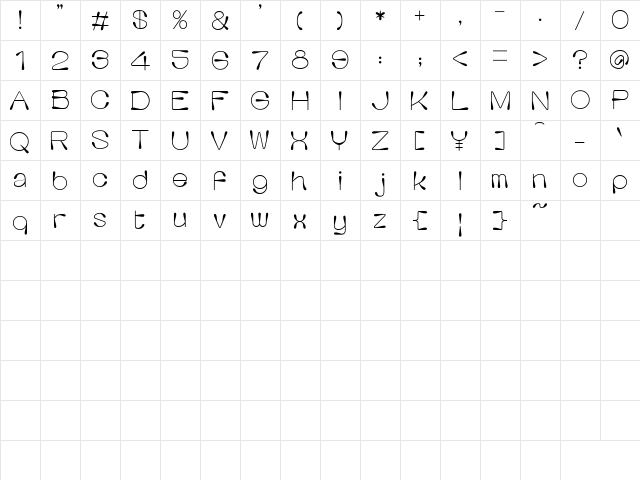
failsafe Regular
Design Context for failsafe Typeface
failsafe offers clean, dependable letterforms without strong stylistic allegiance, making it a practical choice for designers who need flexibility.